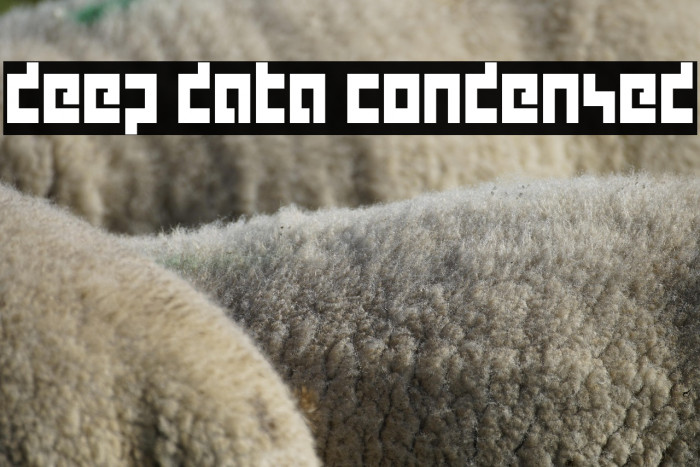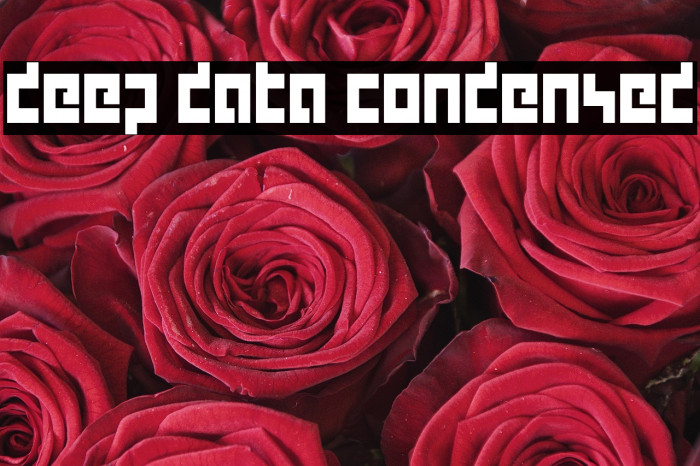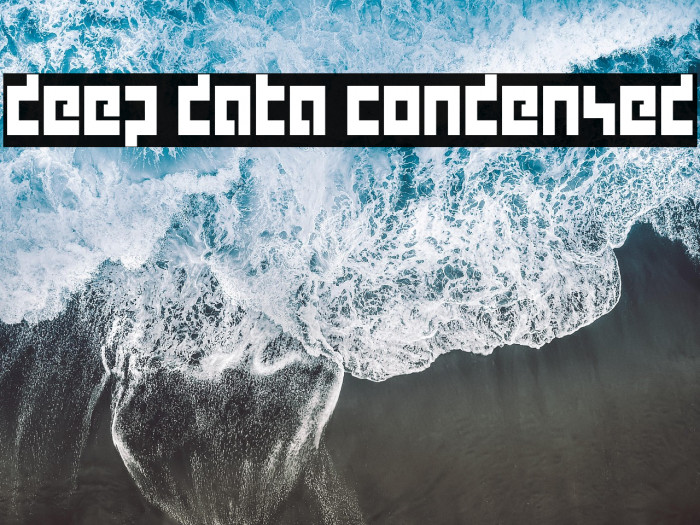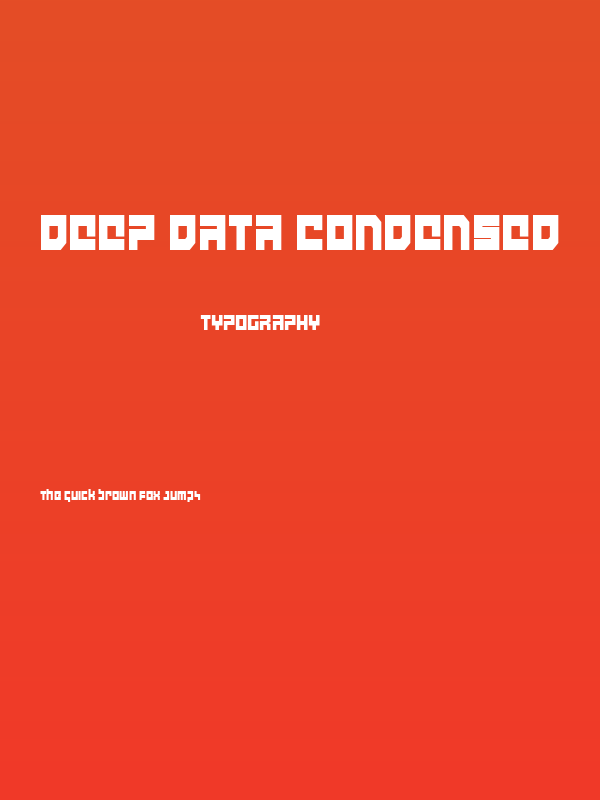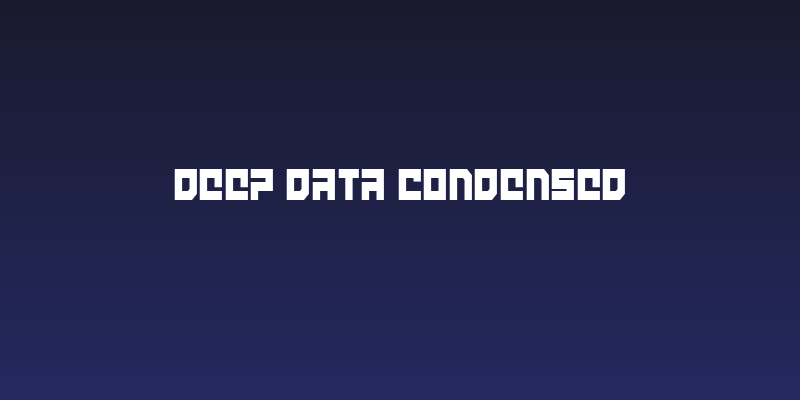
deep data condensed Font
deep data condensed Description
This font features a bold, geometric design with a distinctly modern and futuristic aesthetic. The characters are constructed with sharp angles and straight lines, giving them a blocky, pixelated appearance. The uppercase and lowercase letters maintain a consistent height, contributing to a uniform look. The numerals and special characters follow the same angular style, ensuring cohesion across all elements. The font's condensed width allows for efficient use of space, making it suitable for headlines or titles where impact is essential. Its unique style is reminiscent of digital or technological themes, making it ideal for projects that require a contemporary and edgy feel.
| Proposed Projects | Ideal for tech-related branding, video game titles, futuristic posters, and digital media. |